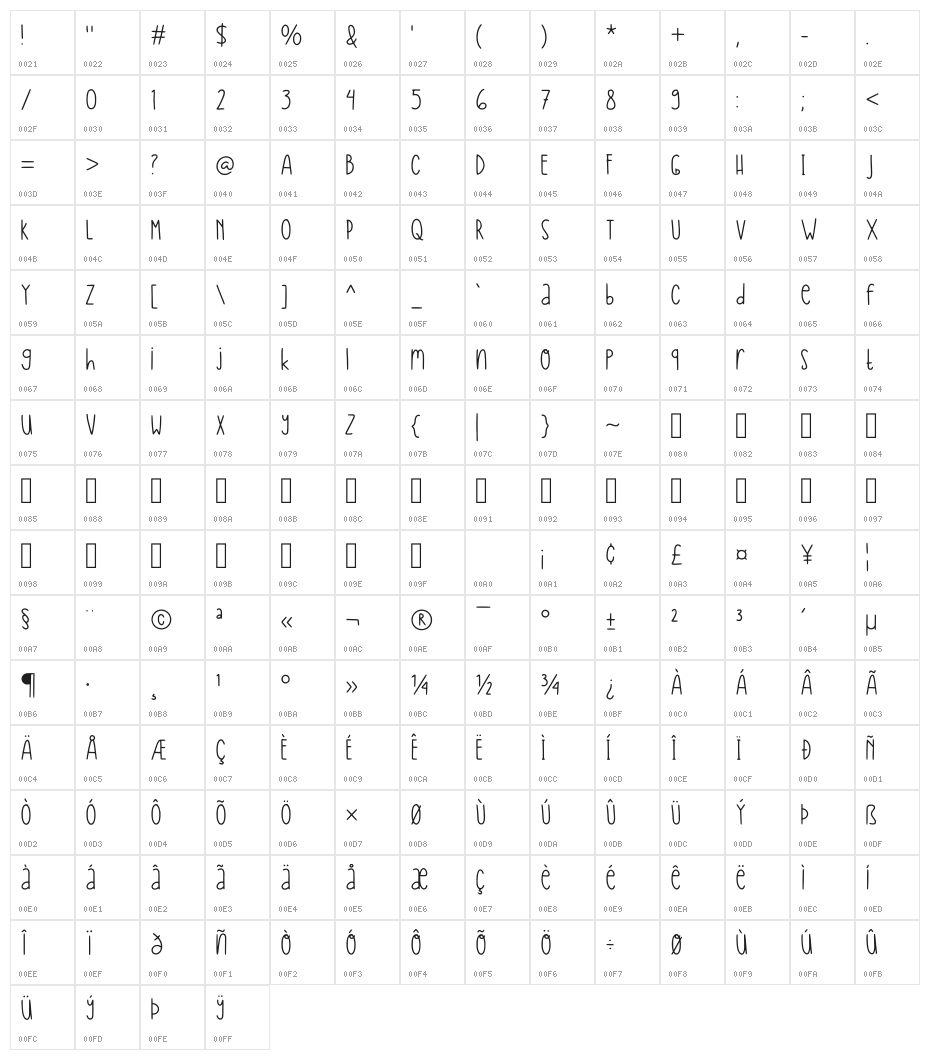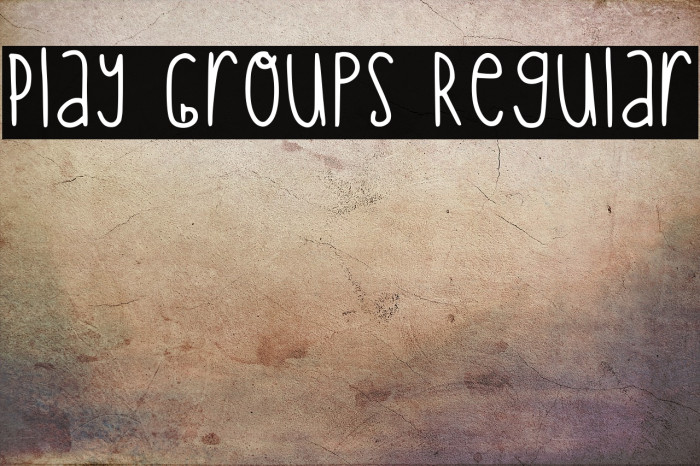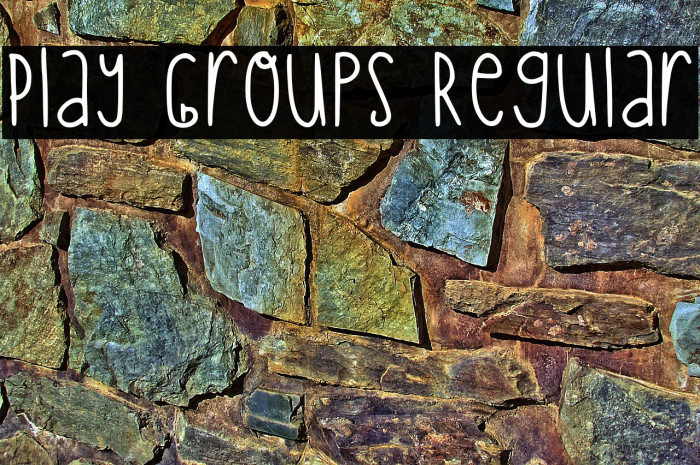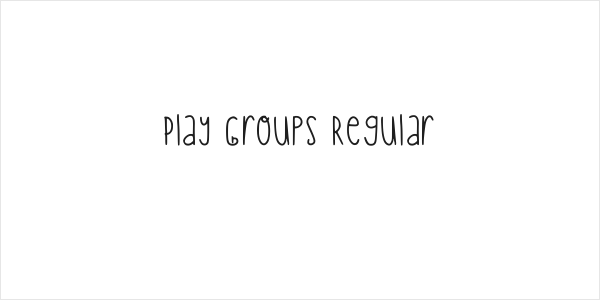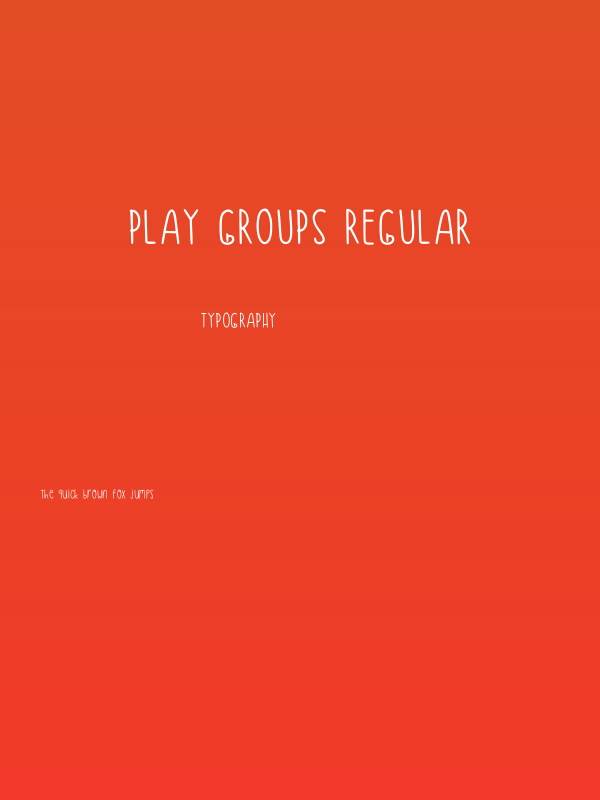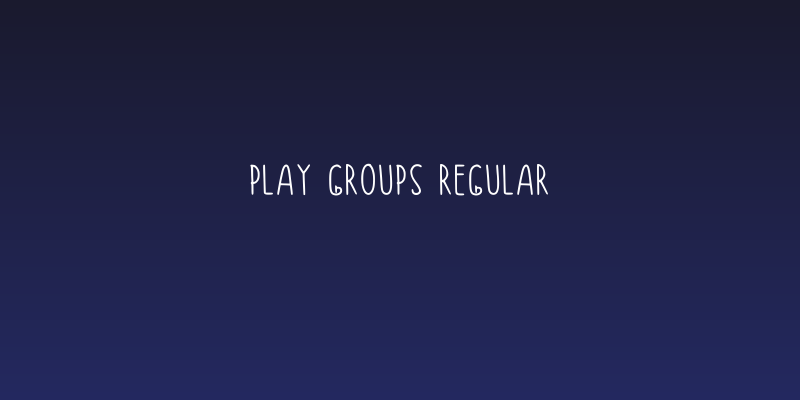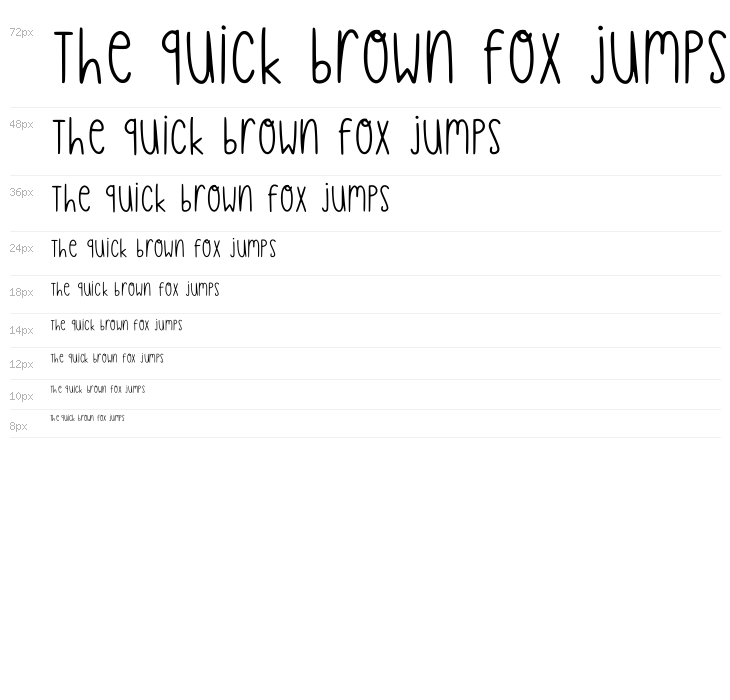
Play Groups Regular Font
Play Groups Regular Description
This font features a playful and informal style, characterized by its handwritten appearance. The letters are slightly irregular, giving it a whimsical and friendly feel. The strokes are consistent in thickness, providing a uniform look across all characters. The uppercase and lowercase letters maintain a cohesive design, with rounded edges and a casual flair. Numbers and special characters follow the same playful aesthetic, making this font suitable for creative and informal projects.
| Proposed Projects | Ideal for children's books, playful branding, greeting cards, and casual invitations. |